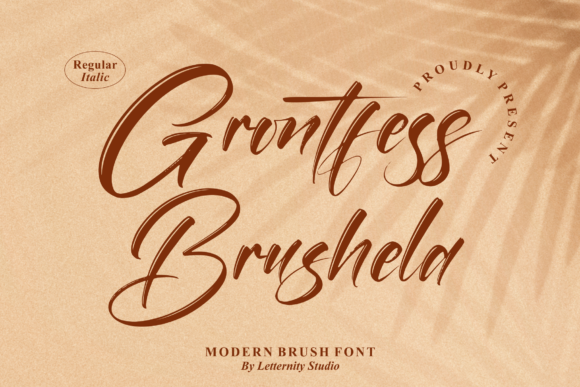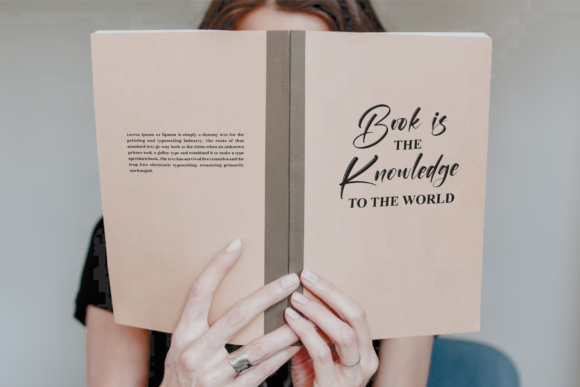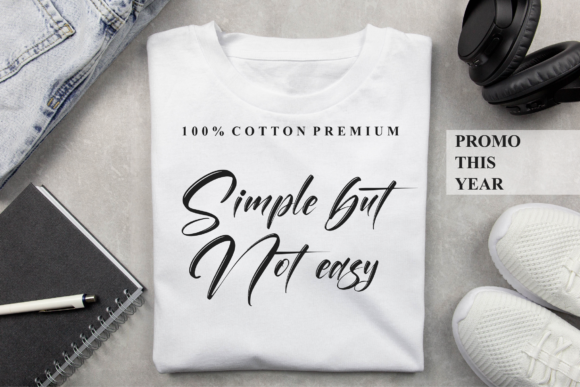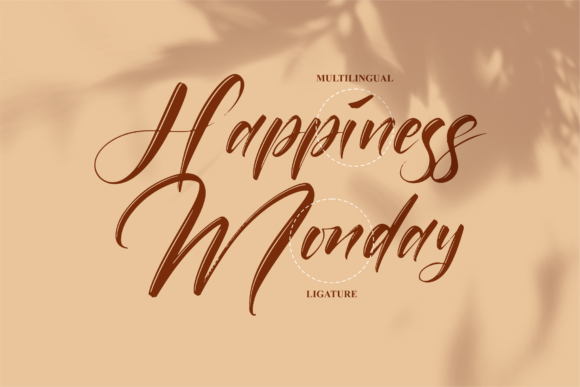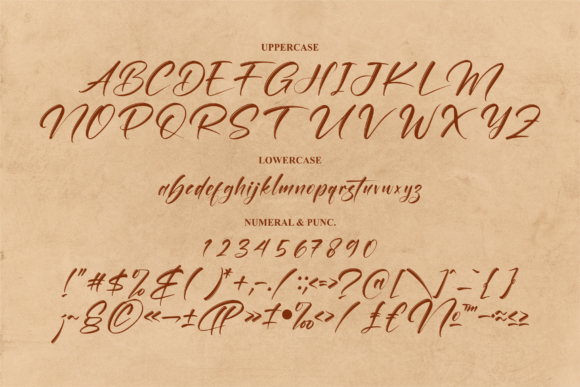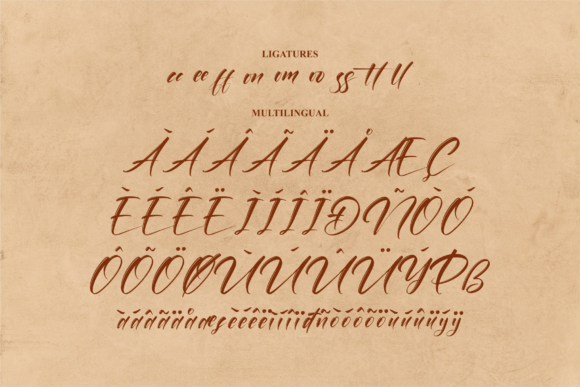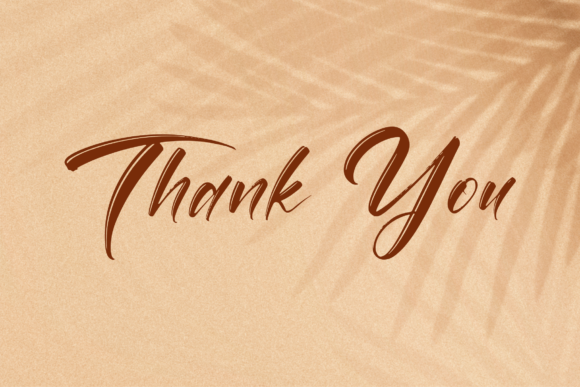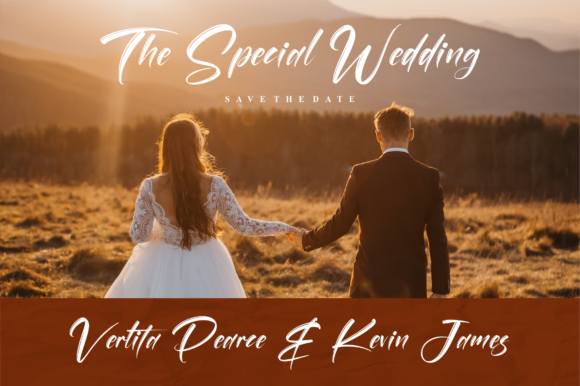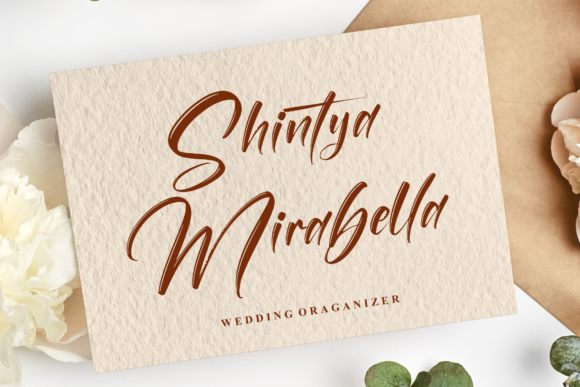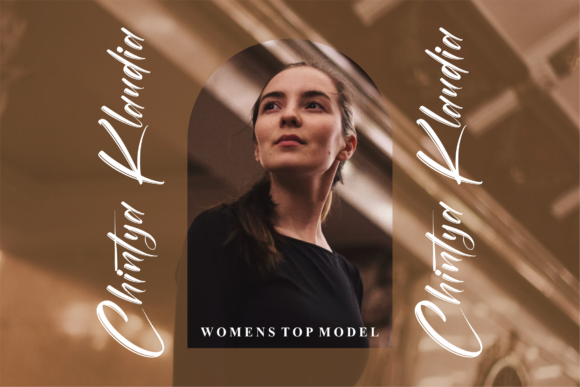
Grontfess Brushela Font
About Grontfess Brushela Font
Grontfess Brushela a beautiful and brushed handwritten font that’s great for delivering any message with confidence, authenticity and charm. It will elevate a wide range of crafting ideas, from cards, to branding, labels and much more.